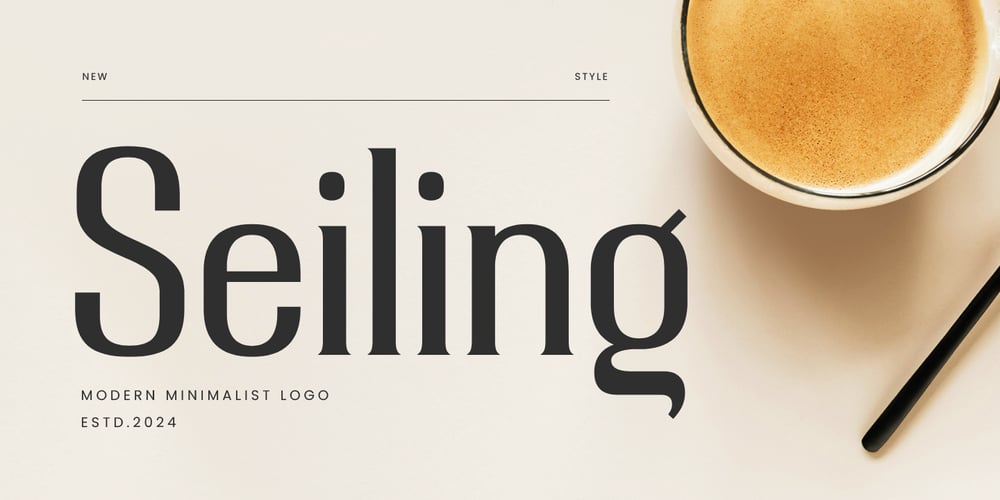
Seiling Font Family was designed by Zamroni Hamzah and published by Sensatype Studio. Seiling contains 1 styles and family package options. An Unique Modern Minimalist Font that we created special for Professional and Modern branding needs that will give you more Unique look, with alternates in unique shape will be ready to add value of your brand. It so nice to leverage designer or product owner that need solutions to make their design look more Professional and Luxury. And specially for this font, We prepared any alternate characters to help you create unlimited variations for your creative needs.Seiling Minimalist Font ready with: Any options to get creative variations (combination of Unique Characters) 4 format already Preview as a inspirations that you can do with this font Ready with Lowercase and Uppercase characters Wish you enjoy our font. 🙂